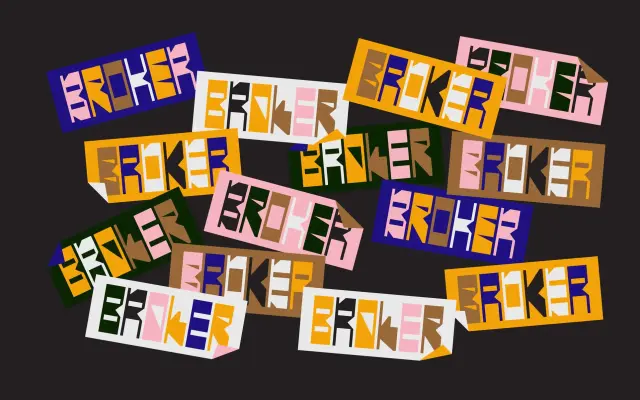
Broker
An angular variable display family built on a rectangular frame, shifting between slim mono-weight and chunky serifed styles via variable controls for thickness, decoration and shape.
Designed by Alexander Wright and In-House International and developed by Rodrigo Fuenzalida at FragType, Broker draws on DIY cut-paper lettering to produce something deliberately rough and expressive. Twelve styles are accessible across a variable axis controlling thickness, decoration and shape, moving from square mono-weight through stressed angled cuts to slab-heeled display weights. The modular rectangular frame makes stacking and grid-based layouts straightforward, lending the family to posters, packaging, cover art and motion work.
Broker is categorised as a display typeface owing to its angular, modular construction and twelve variable styles ranging from mono-weight to stressed and serifed cuts, all built on a rectangular frame for poster and branding use rather than text setting.